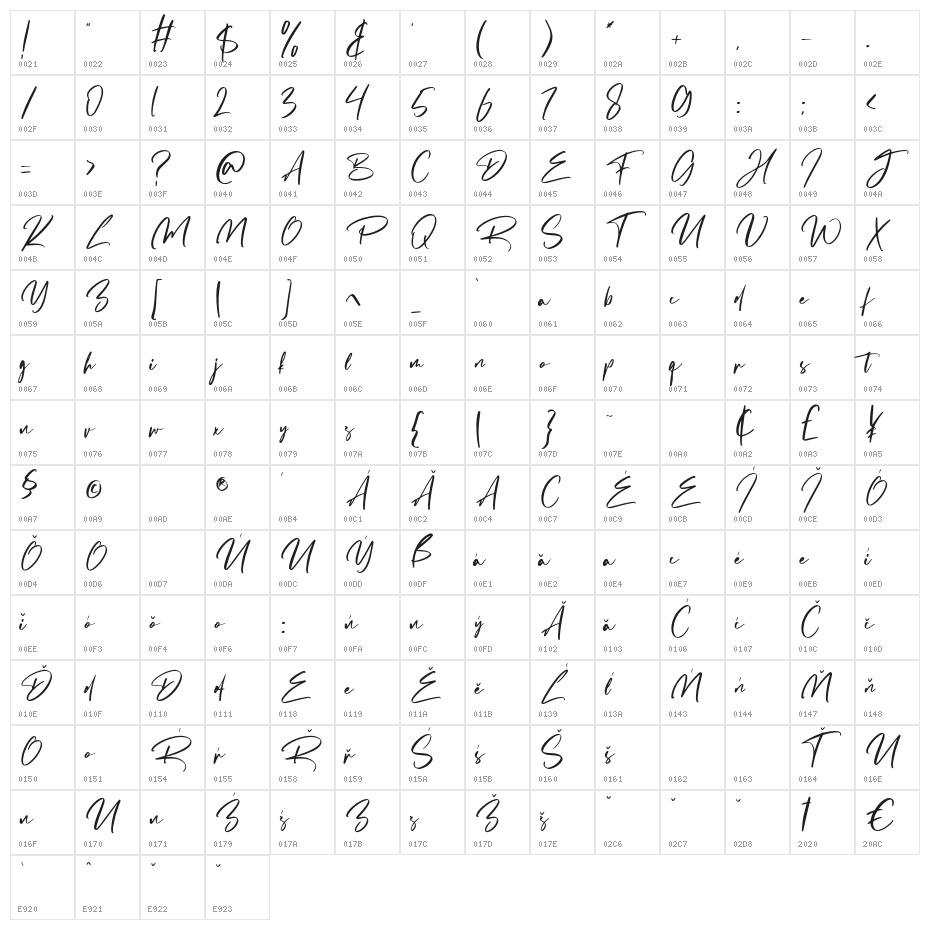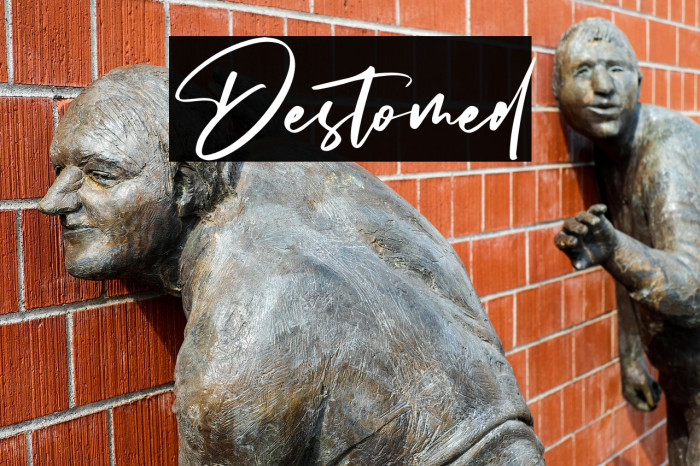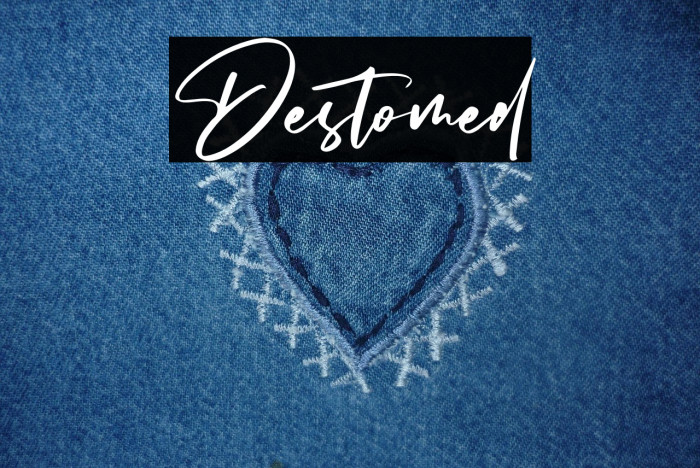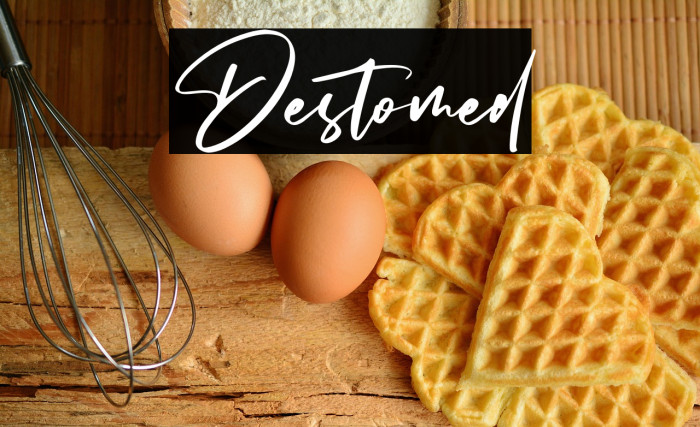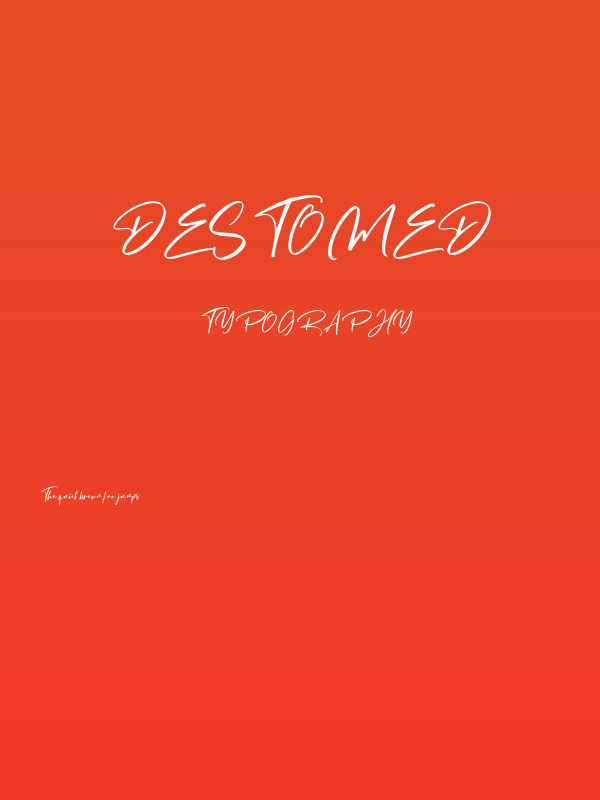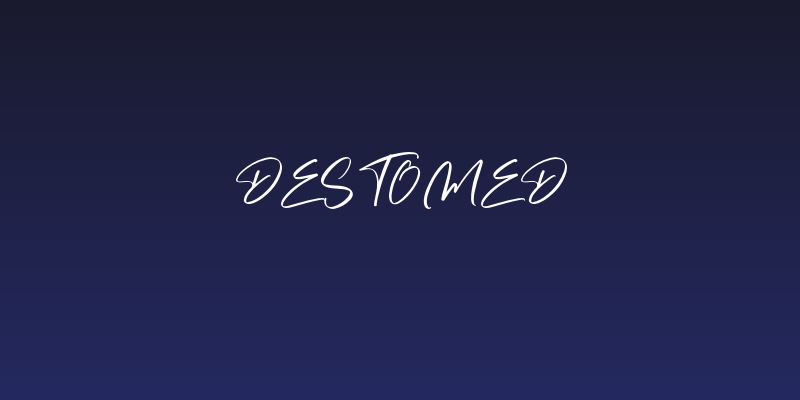
Destomed Font
Destomed Description
This font features a dynamic and fluid script style, characterized by its elegant and flowing letterforms. The uppercase letters exhibit a graceful, cursive design with smooth curves and a slight slant, giving a sense of motion and sophistication. The lowercase letters maintain a consistent style, with some letters extending below the baseline, adding to the font's charm. The numerals are designed with a similar flair, ensuring consistency across all characters. Special characters are seamlessly integrated, maintaining the overall aesthetic. This font is perfect for projects that require a personal and artistic touch, such as invitations, branding, and creative designs.
| Overall Style | Elegant, Artistic |
| Use Case | Headlines, Invitations, Branding |
| Proposed Projects | Ideal for wedding invitations, personal branding, artistic projects, and elegant packaging designs. |